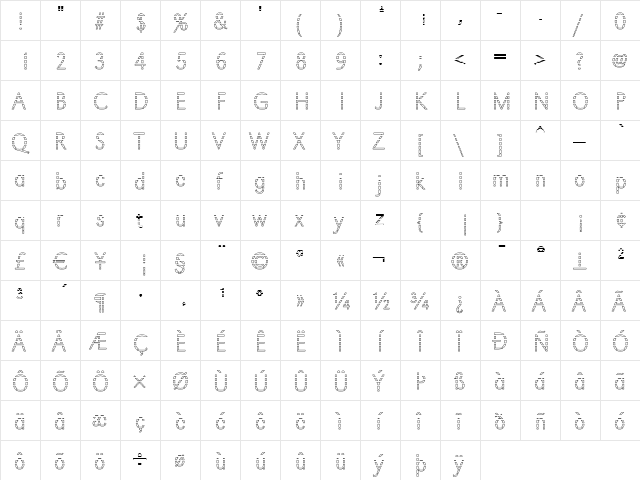
TomBeckerGradoC-Xlight Normal Font Preview
TomBeckerGradoC-Xlight Normal
TomBeckerGradoC-Xlight Normal Font Details
Design Context for TomBeckerGradoC-Xlight Typeface
TomBeckerGradoC-Xlight offers clean, dependable letterforms without strong stylistic allegiance, making it a practical choice for designers who need flexibility. The delicate stroke weight brings airiness and refinement to layouts.